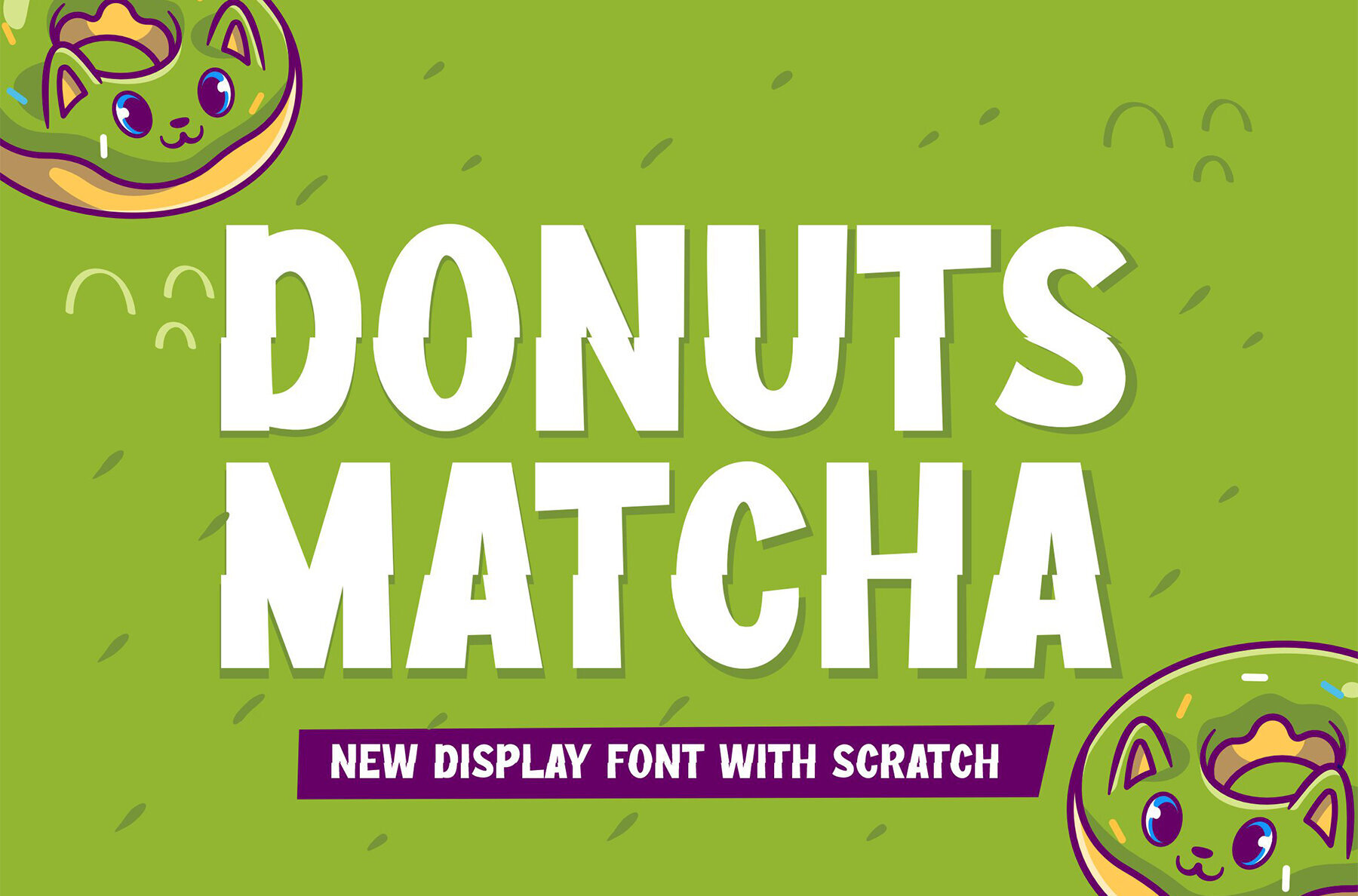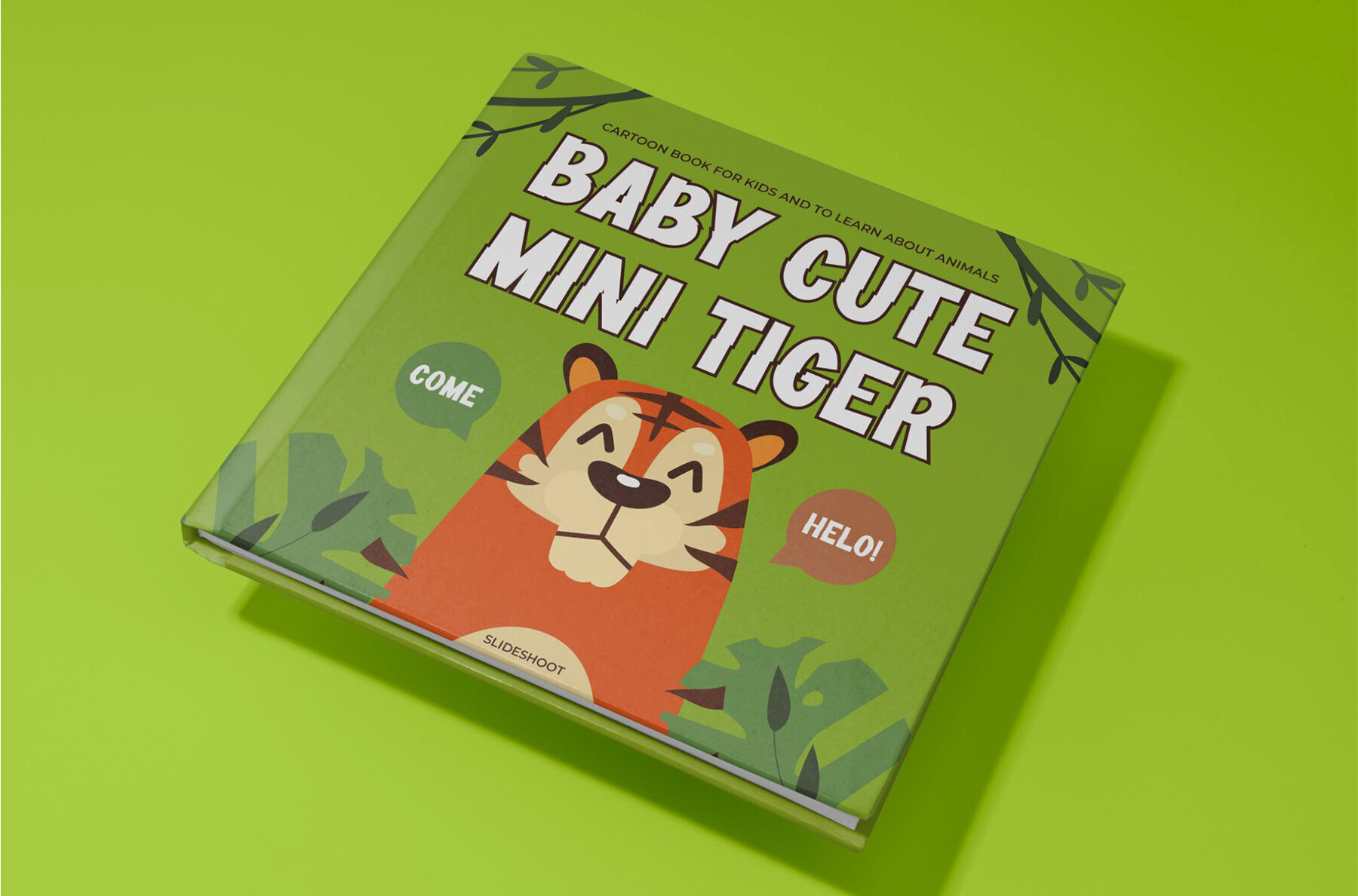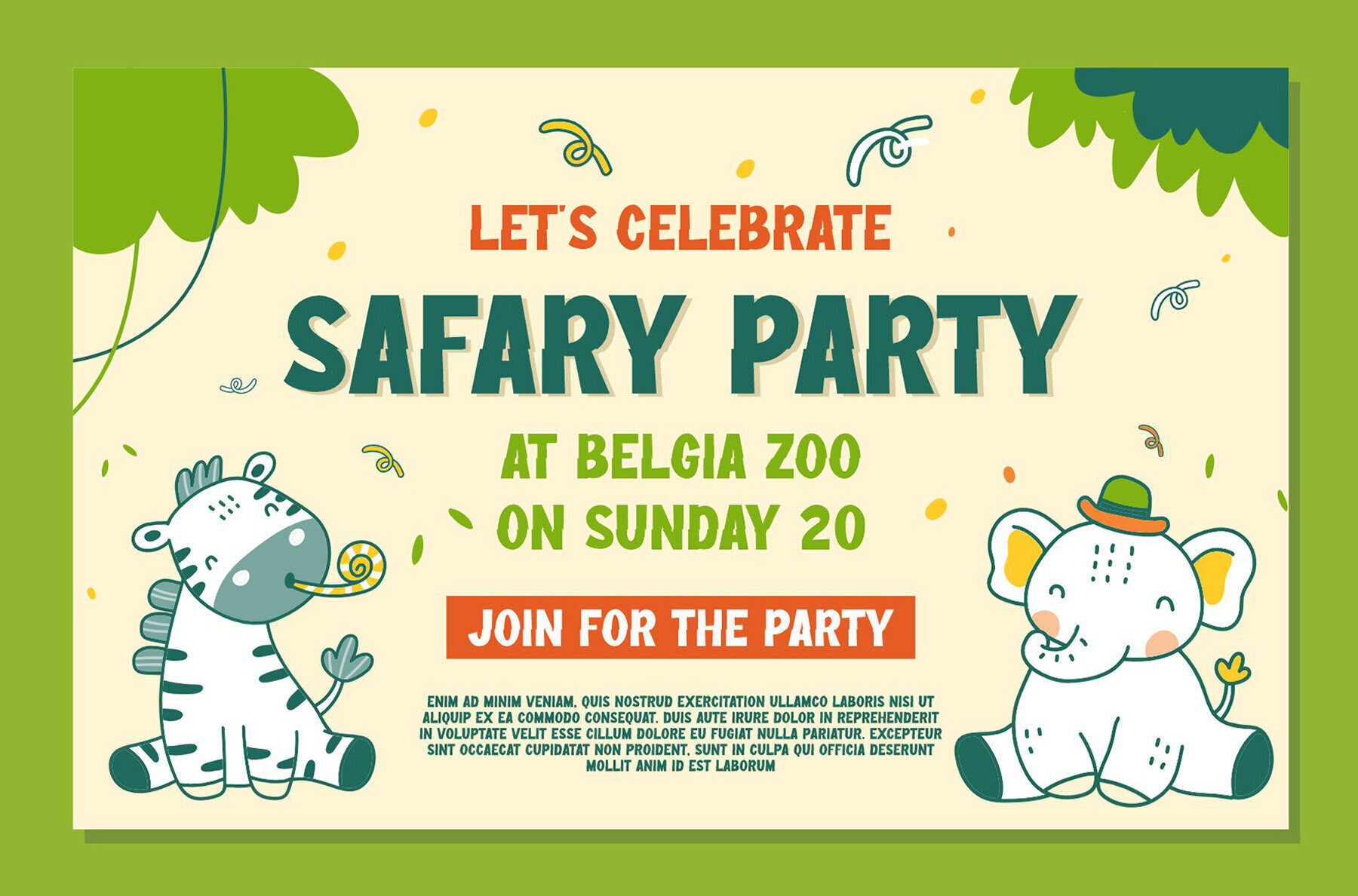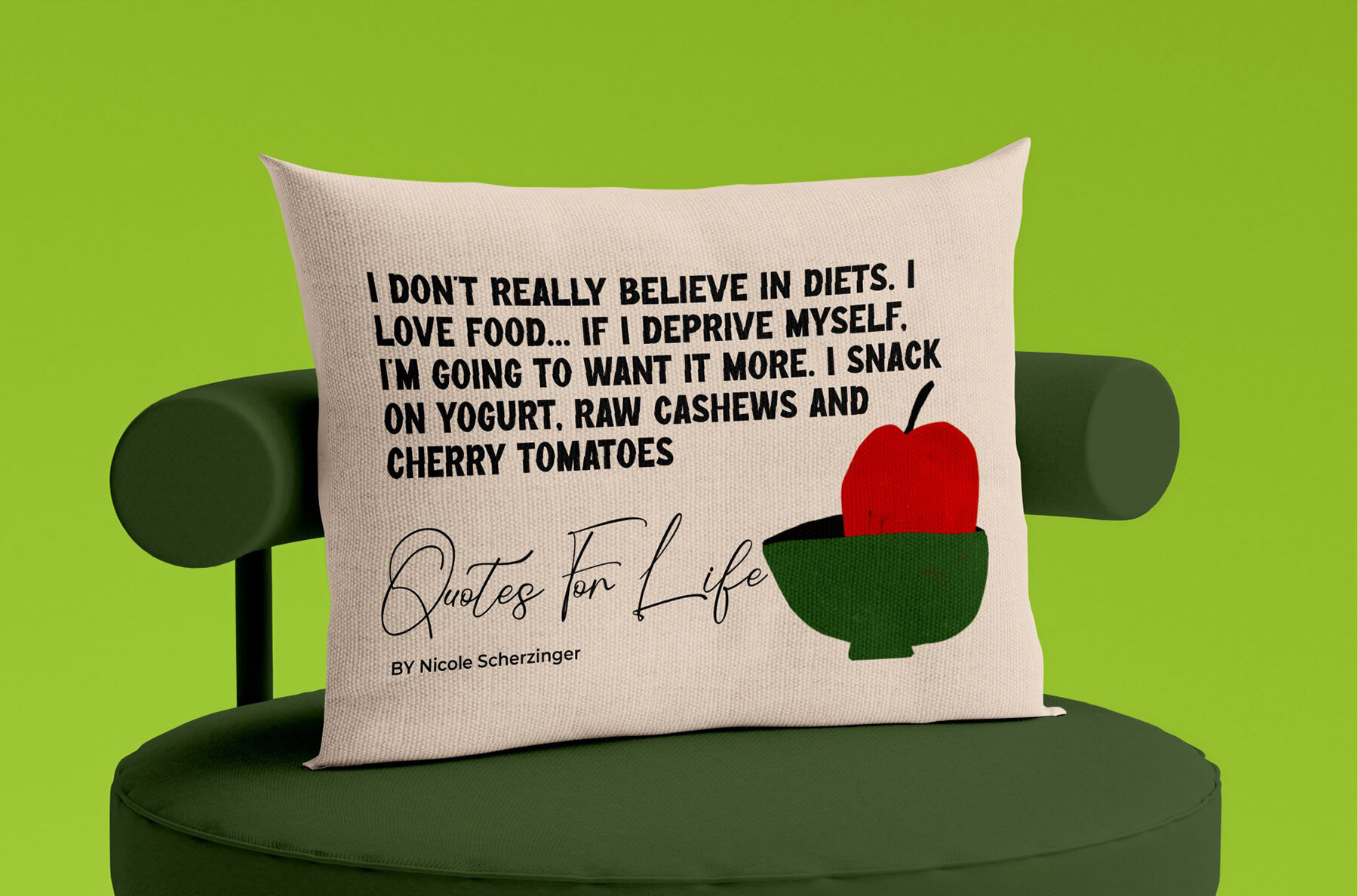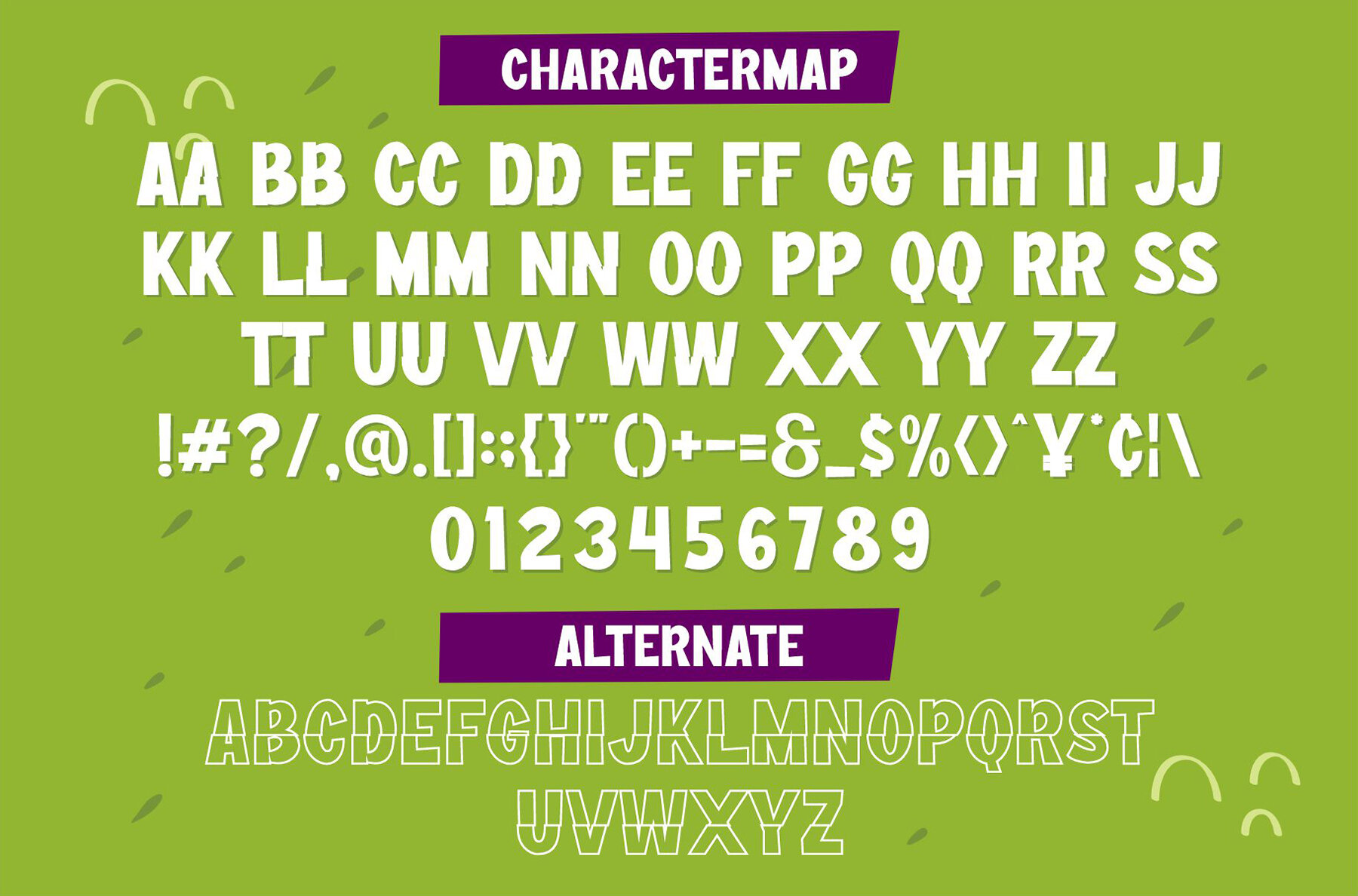
Donuts Matcha Font
Donuts Matcha
Donuts Matcha is a lively and charming display font that adds a modern and whimsical touch to any project. Featuring a distinct wood-themed character, this font is ideal for a variety of creative applications. Whether you're designing invitation cards, crafting company logos, or developing movie titles, Donuts Matcha offers versatility and style to bring your projects to life.